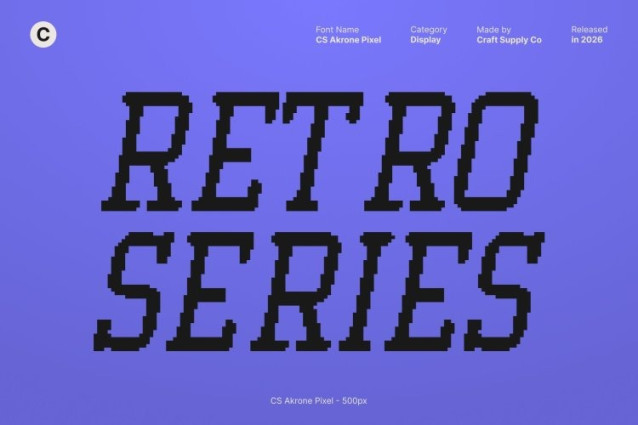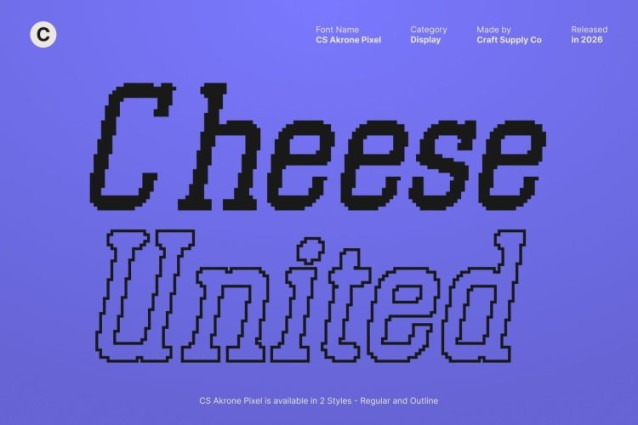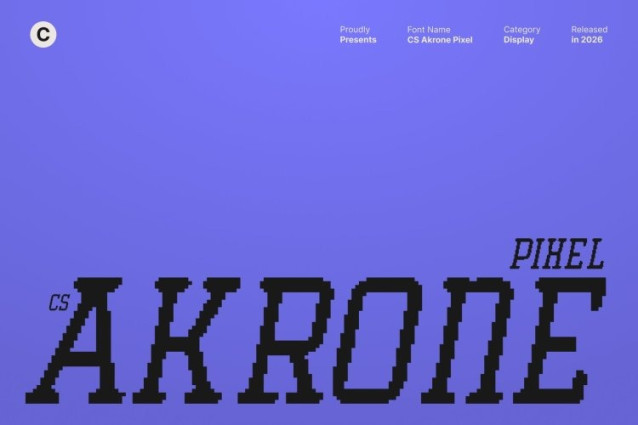
CS Akrone Pixel Font
CS Akrone Pixel Font This is a slab serif font that blends soft curves with confident structure, enhanced by subtle pixel detailing. Its sturdy slab serifs provide a strong, grounded foundation, while the pixel-based construction introduces an old-digital character inspired by retro screens. This balance creates a typeface that feels approachable yet assertive, combining warmth with a bold, modern–retro identity.
Clear Readability with Retro Digital Impact
Designed for clarity and visibility, this font performs exceptionally well at large sizes. The clean letterforms and pixel-defined edges ensure excellent legibility, even from a distance. This makes it ideal for headlines, posters, advertisements, and billboards that need strong impact while maintaining a nostalgic 8-bit digital feel.
Modern Sturdiness Meets Old-School Aesthetics
This font delivers a modern and sturdy visual character while embracing retro digital charm. The confident weight and pixel accents create a distinctive look that feels both contemporary and nostalgic. It’s perfect for designs that want to reference early digital aesthetics without sacrificing modern clarity and professionalism.
Ideal for Logos and Bold Digital Branding
From logos to large-scale branding and promotional materials, this font offers versatility and presence. Its balanced personality and pixel-inspired slab serif form help create memorable typography that feels bold, reliable, and visually striking perfect for brands seeking a strong identity with a modern retro digital edge.